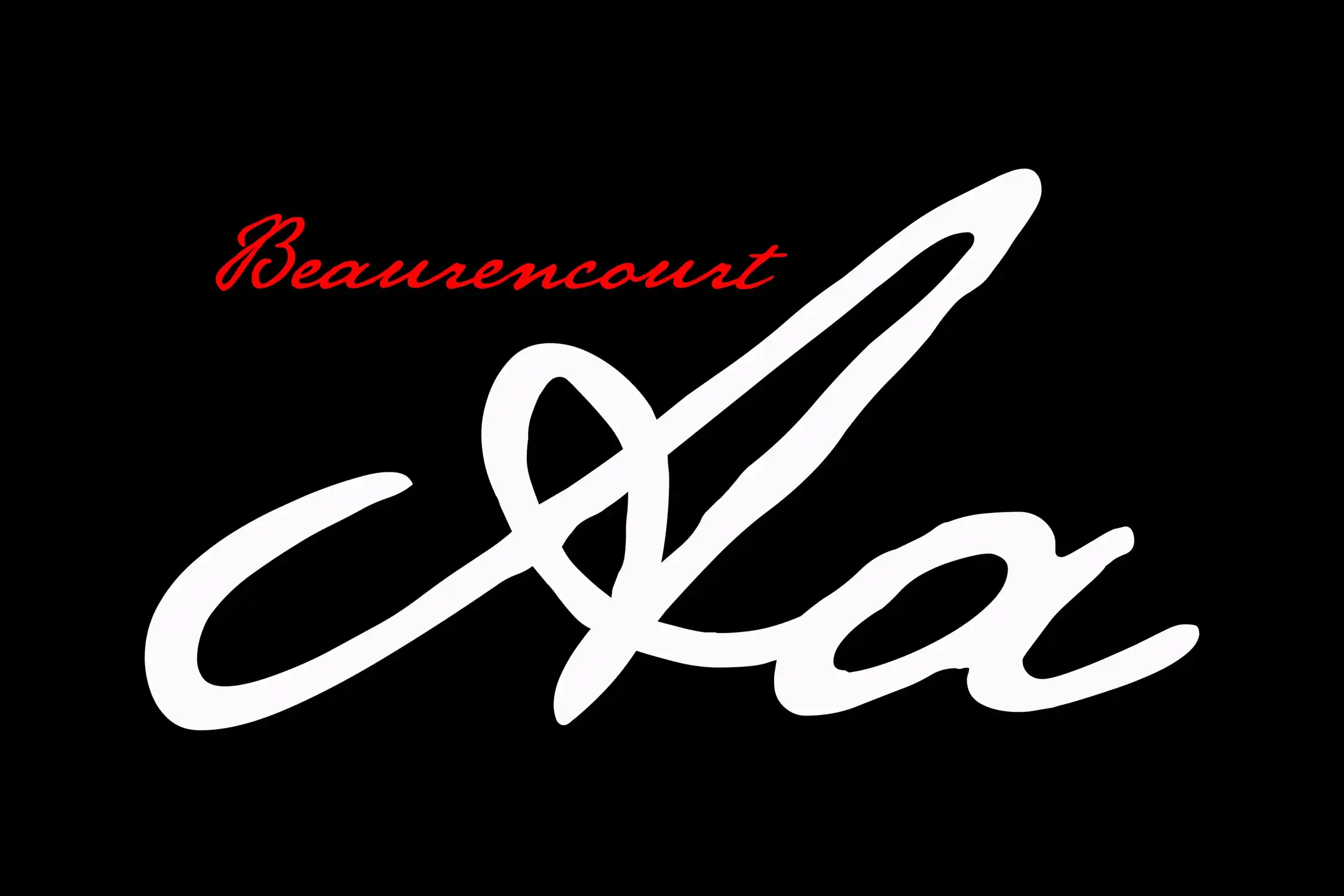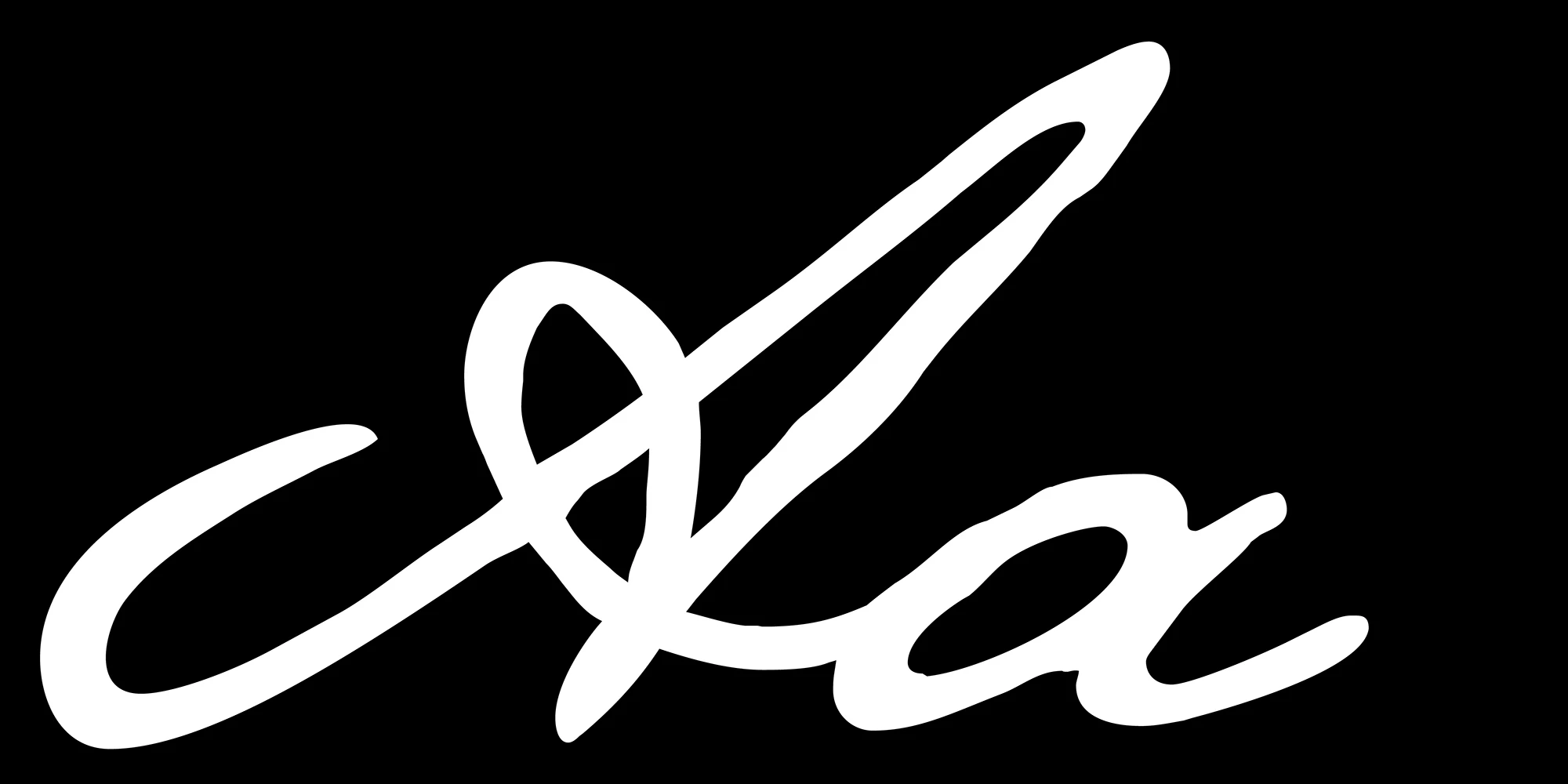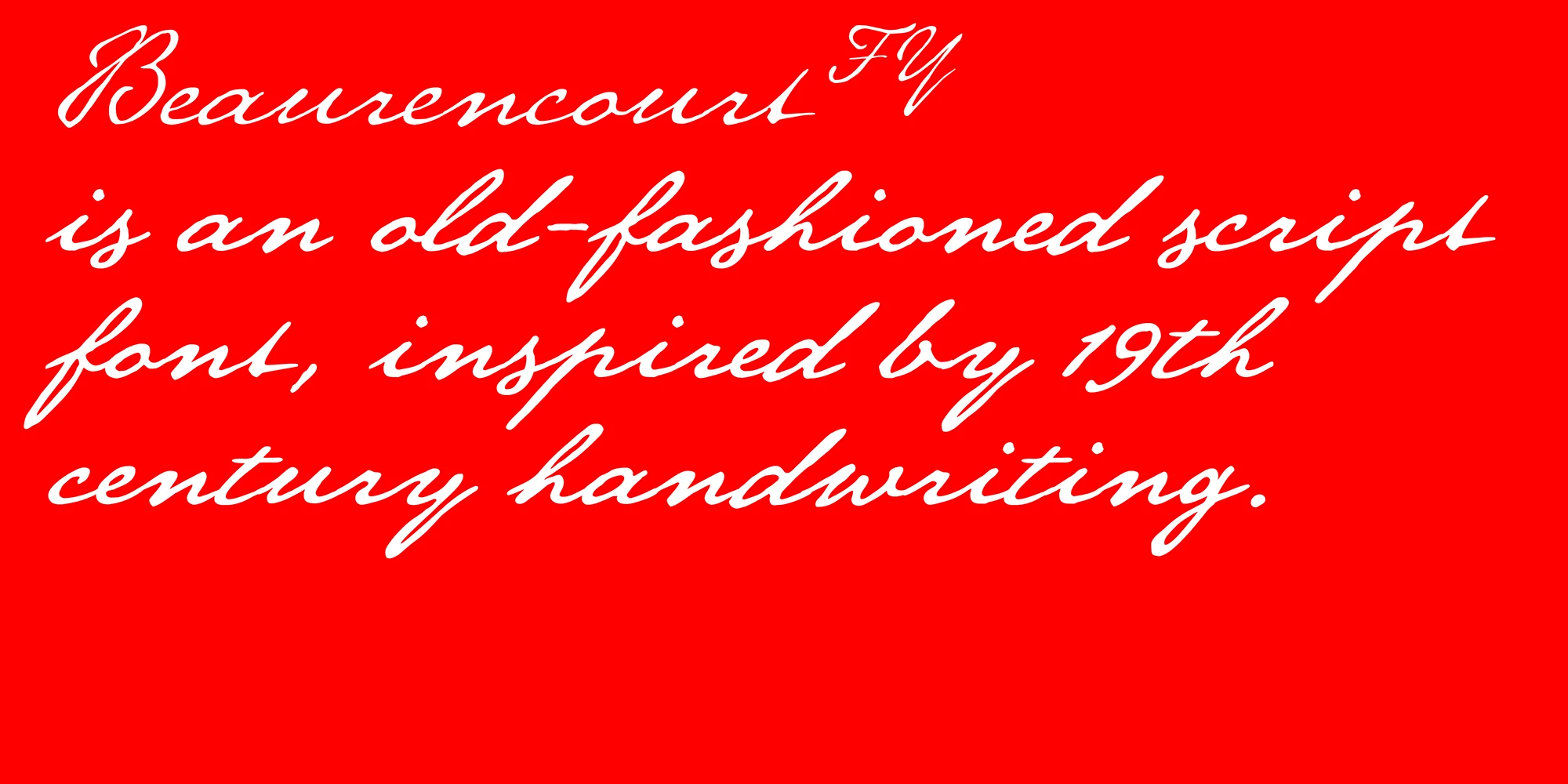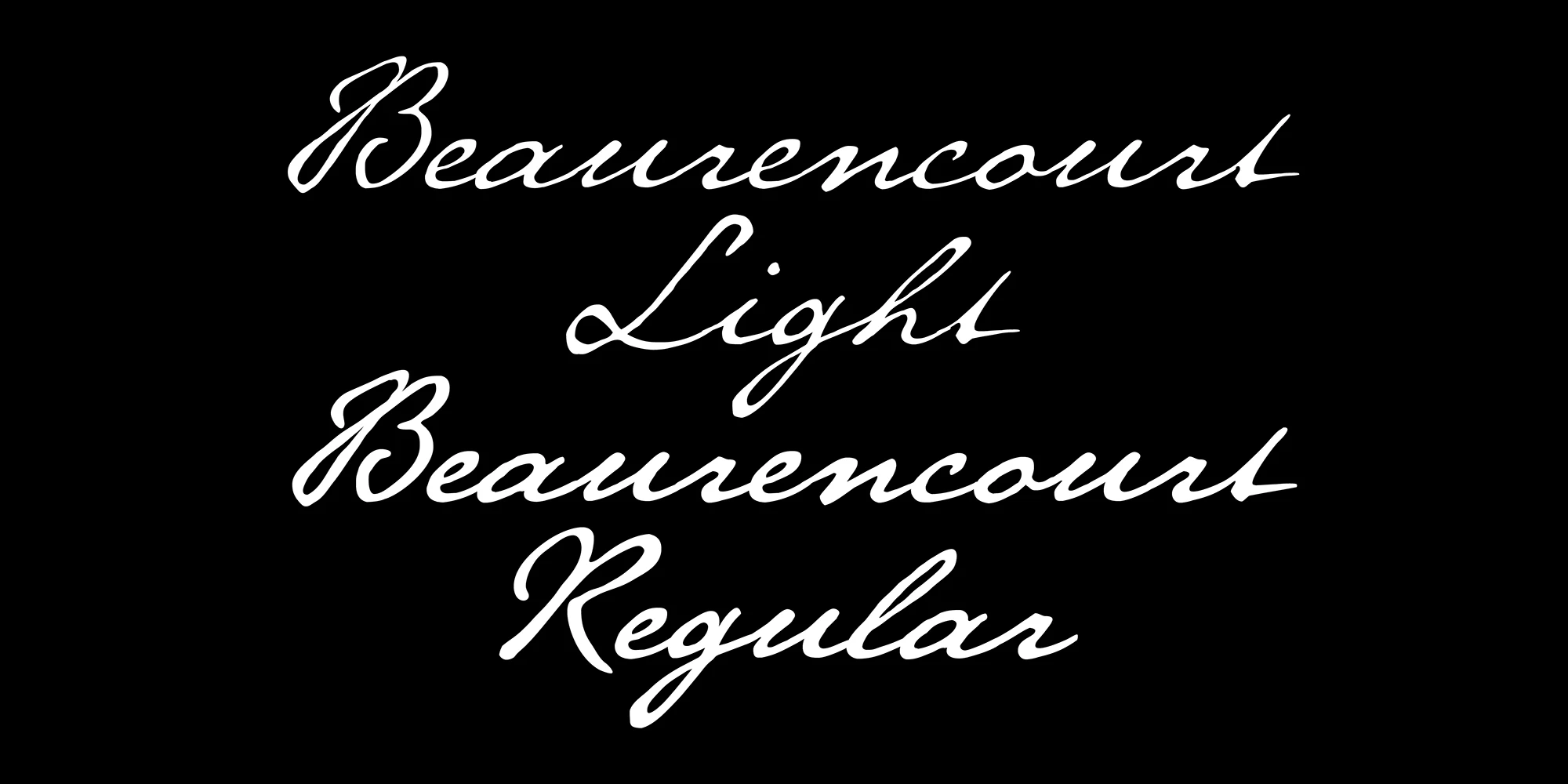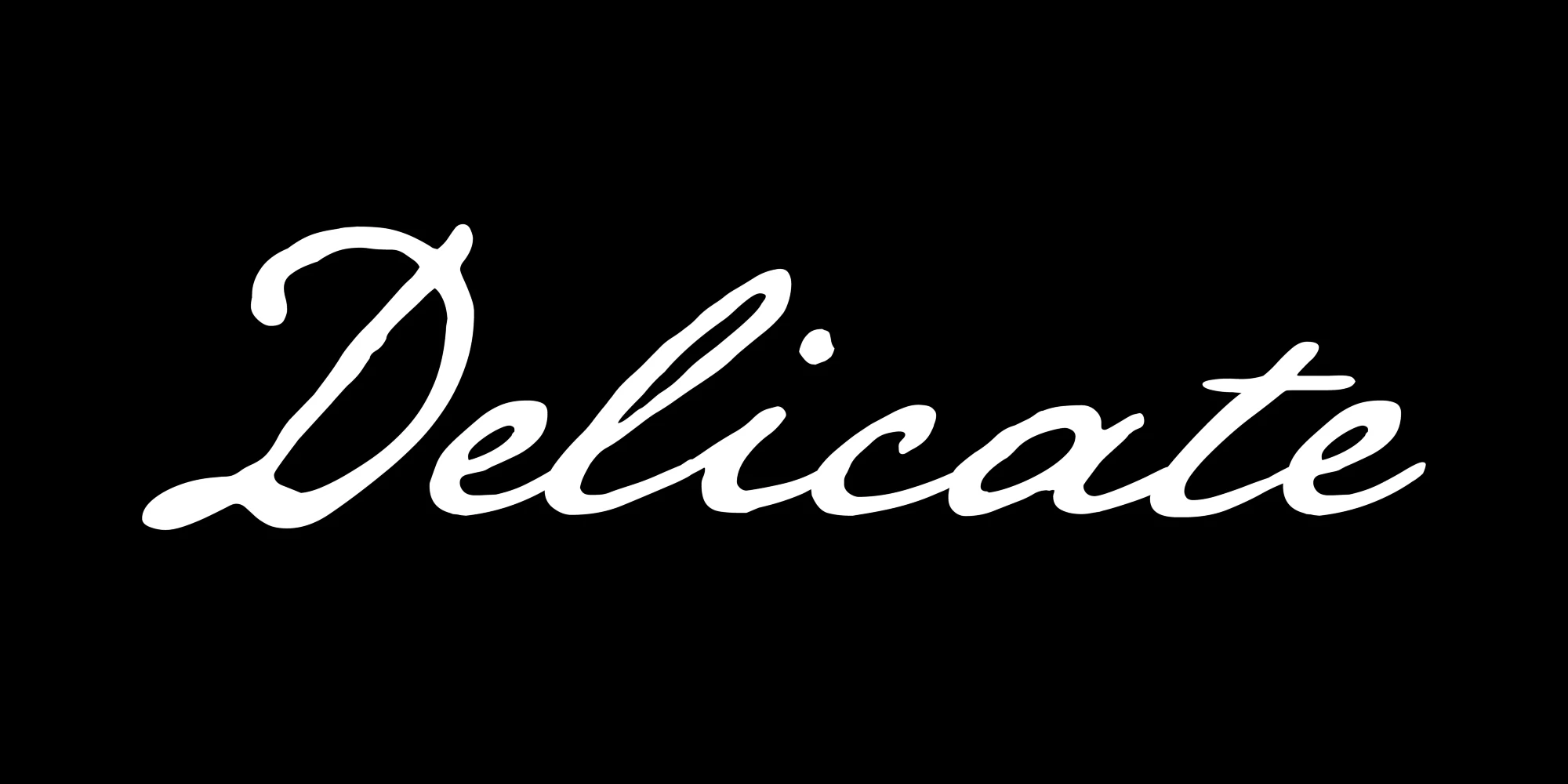
Beaurencourt Font Family
Beaurencourt FY is an old-fashioned script inspired by 19th-century handwriting, offering a delicate, authentic feel. Designed to perform well at small sizes and reveal the texture of ink on paper in display settings, it features connected forms, alternates, loops, and ink spread effects. Available in two weights, Regular and Light, and lots of typographic trimmings including oldstyle figures, ligatures, and stylistic alternates. A perfect choice for film titles, party invitations, and packaging.
Features
OpenType Features
- Common Ligatures
- Fractions
- Ordinal Numerals
- Stylistic Alternates
- Subscript
- Superscript
![Beaurencourt font by Black[Foundry] — the words “Beaurencourt FY is an old-fashioned script font, inspired by 19th century handwriting.” in a connected script.](https://typographer.io/1/assets/blk:beaurencourt/banner-3.webp:size(2000,1000)?14b1)
![Beaurencourt font by Black[Foundry] — the word “Beaurencourt” in a connected script, followed by “Light” in the same script, then “Beaurencourt” again, and finally “Regular” in the same script](https://typographer.io/1/assets/blk:beaurencourt/banner-4.webp:size(2000,1000)?b3bc)
![Beaurencourt font by Black[Foundry] — the word “Delicate” in a connected script with a large swash on the capital D](https://typographer.io/1/assets/blk:beaurencourt/banner-5.webp:size(2000,1000)?ba88)